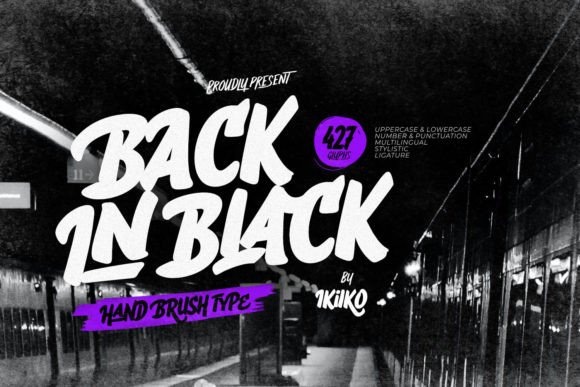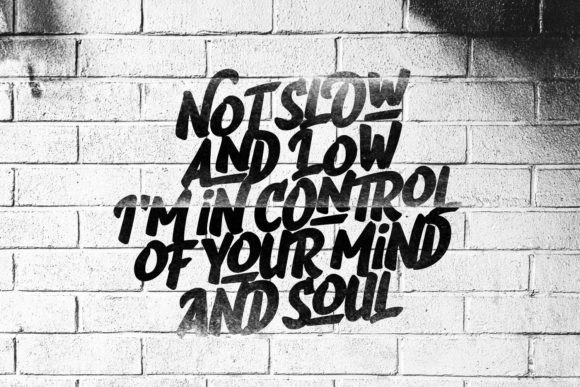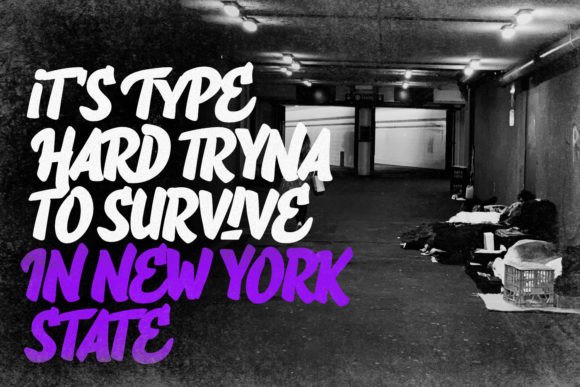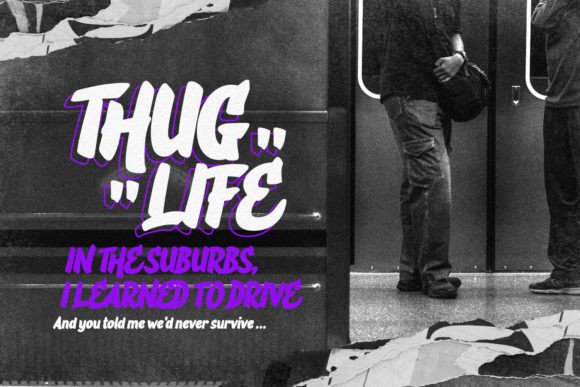
Back in Black Font: Bold Brush Script for Eye-Catching Pinterest Design
About the Back in Black Font
Experience the unique personality of Back in Black Font, a font designed for impact. Back in Black is a hand-drawn brush font that attempts to reflect the urban vibe of suburban walls. The expressive stroke style of this typeface mimics the look of graffiti and other street art with bold strokes that produce striking, eye-catching graphics. This font can be used to produce a wide variety of designs, from playful and whimsical to edgy and rebellious.
Back in Black excels in headline applications, short impactful phrases, and branding projects that demand a strong, rebellious aesthetic. It’s ideal for posters, logos, and packaging where a bold statement is needed. Avoid using it for body text or long-form content; its highly stylized nature makes it difficult to read at smaller sizes.
The font’s core personality is undeniably bold and rebellious. Its energetic, hand-drawn quality makes it perfect for brands targeting a youthful, edgy audience. Consider pairing it with a clean sans-serif like Montserrat for contrast or a geometric sans-serif like Futura for a modern, balanced feel.
For a softer contrast, a neutral serif like Lato could work well, tempering Back in Black’s raw energy. Avoid pairing it with other highly decorative or script fonts; the result would be visually cluttered and overwhelming.